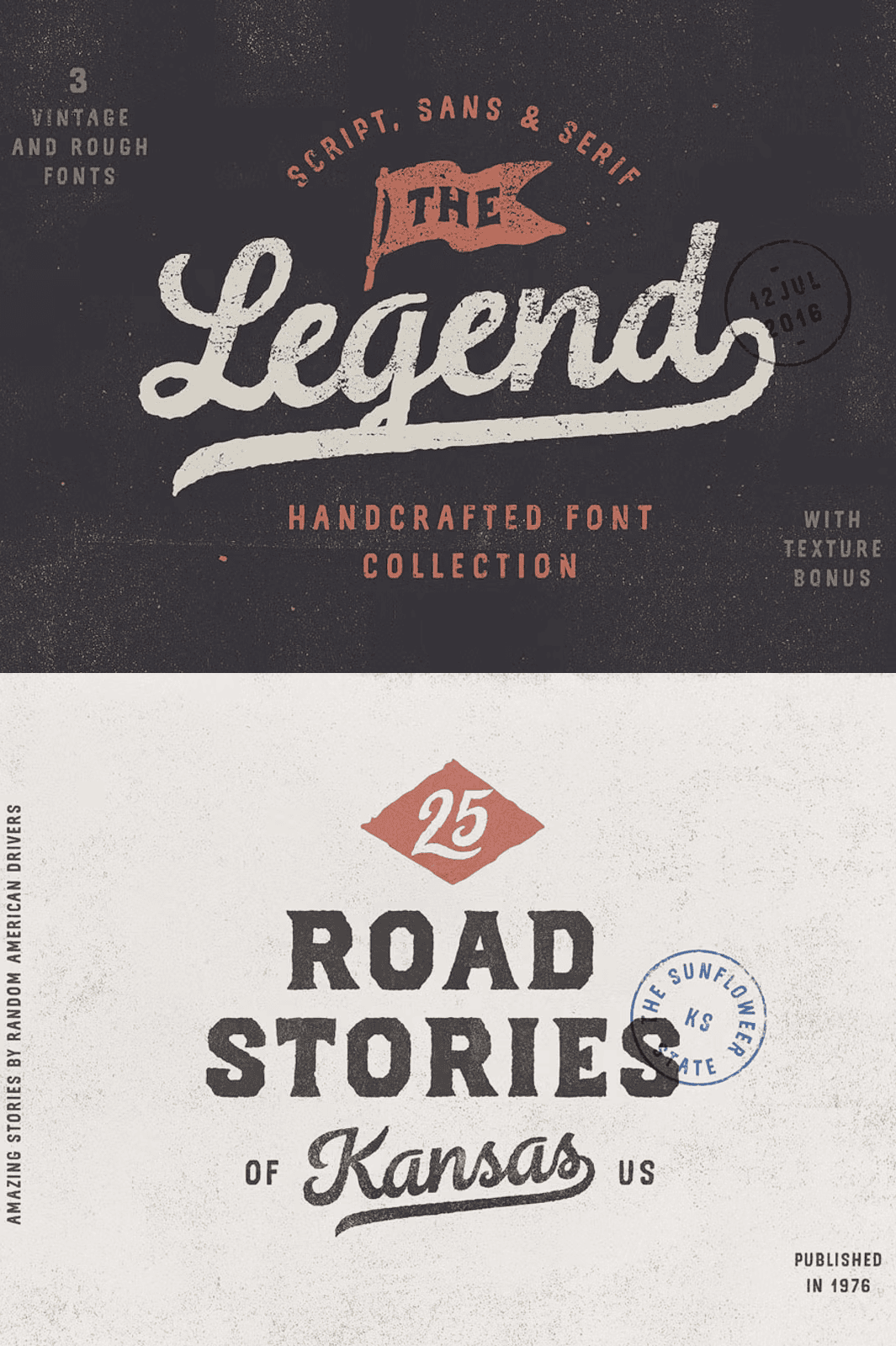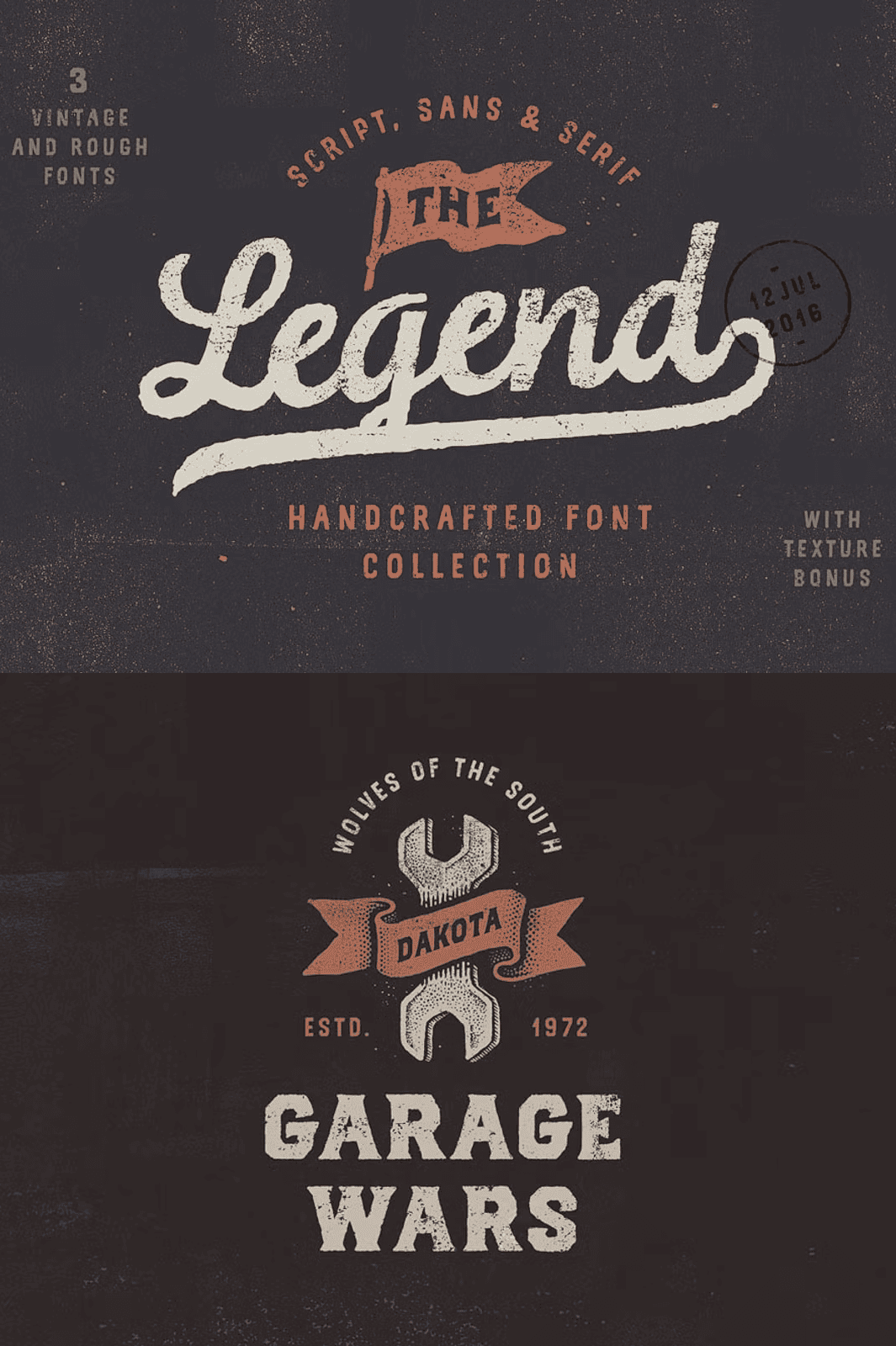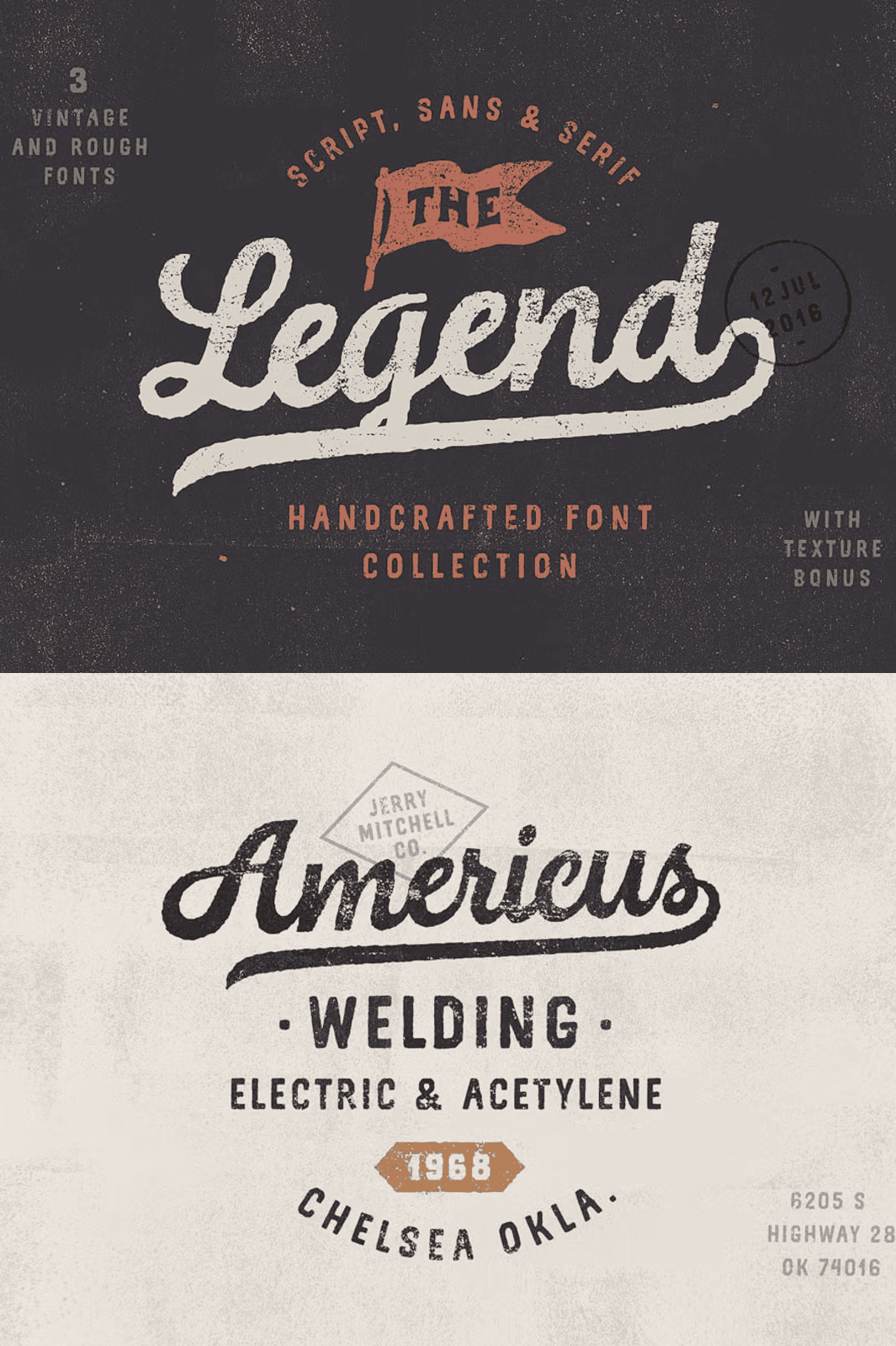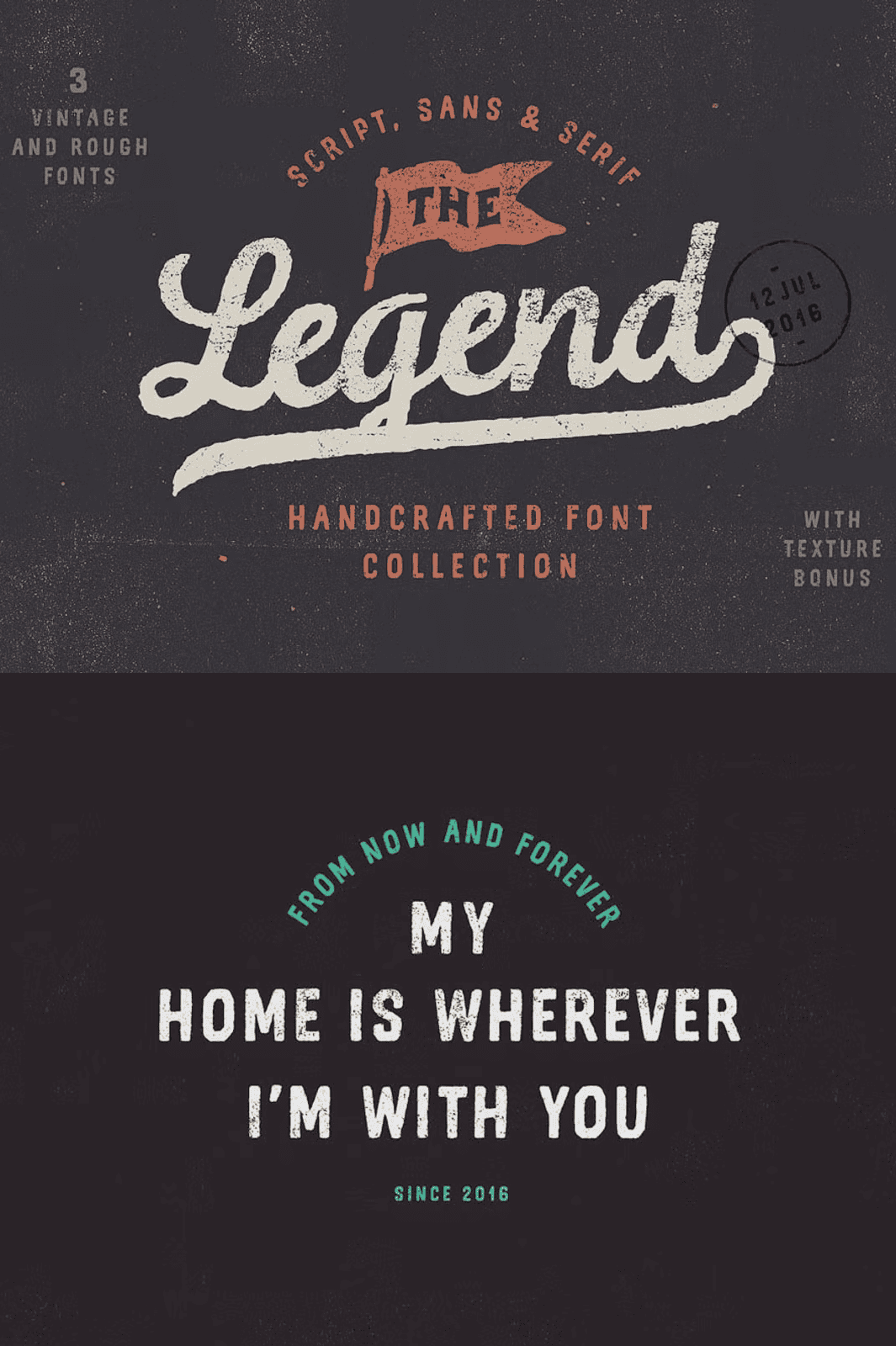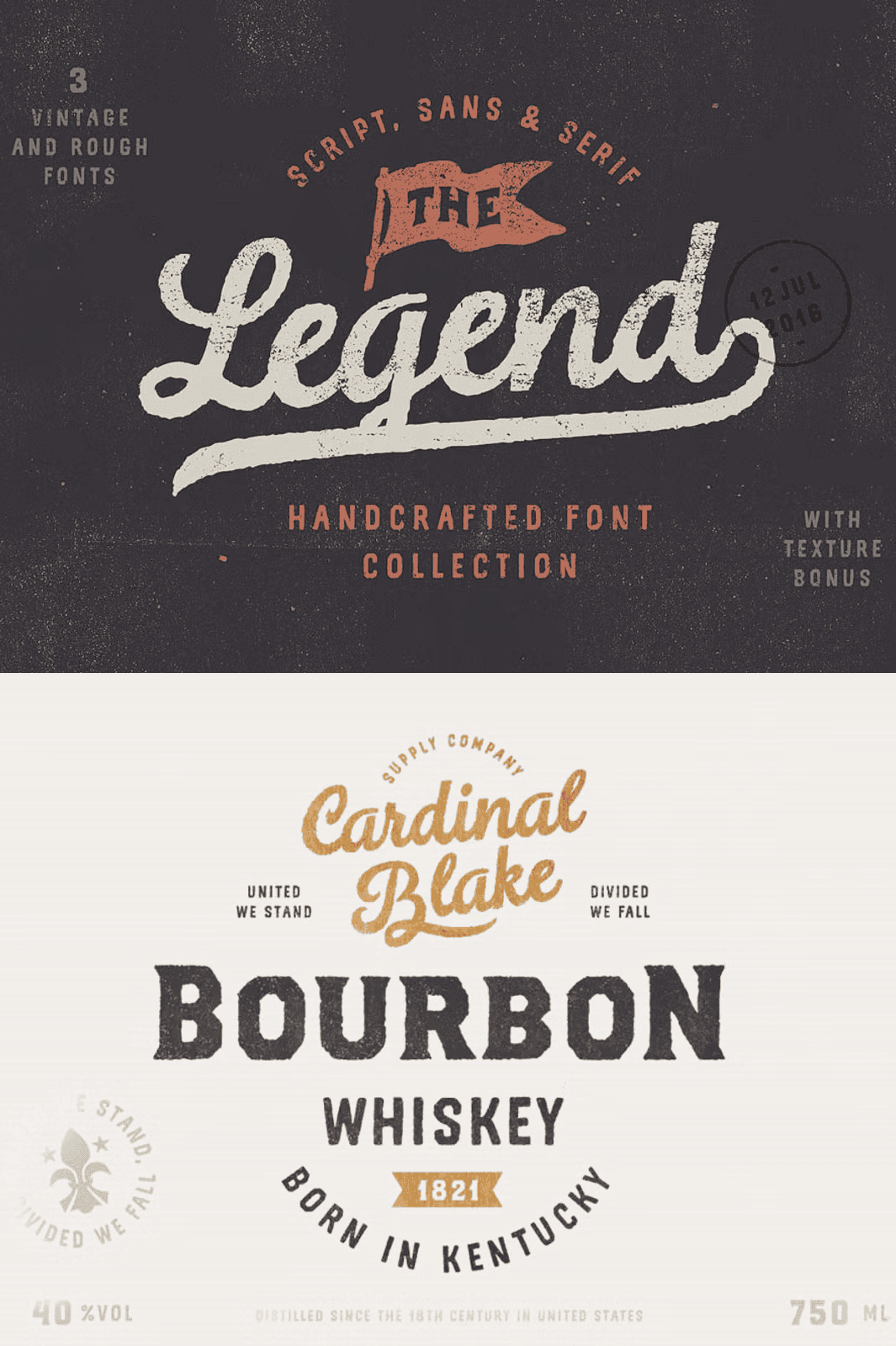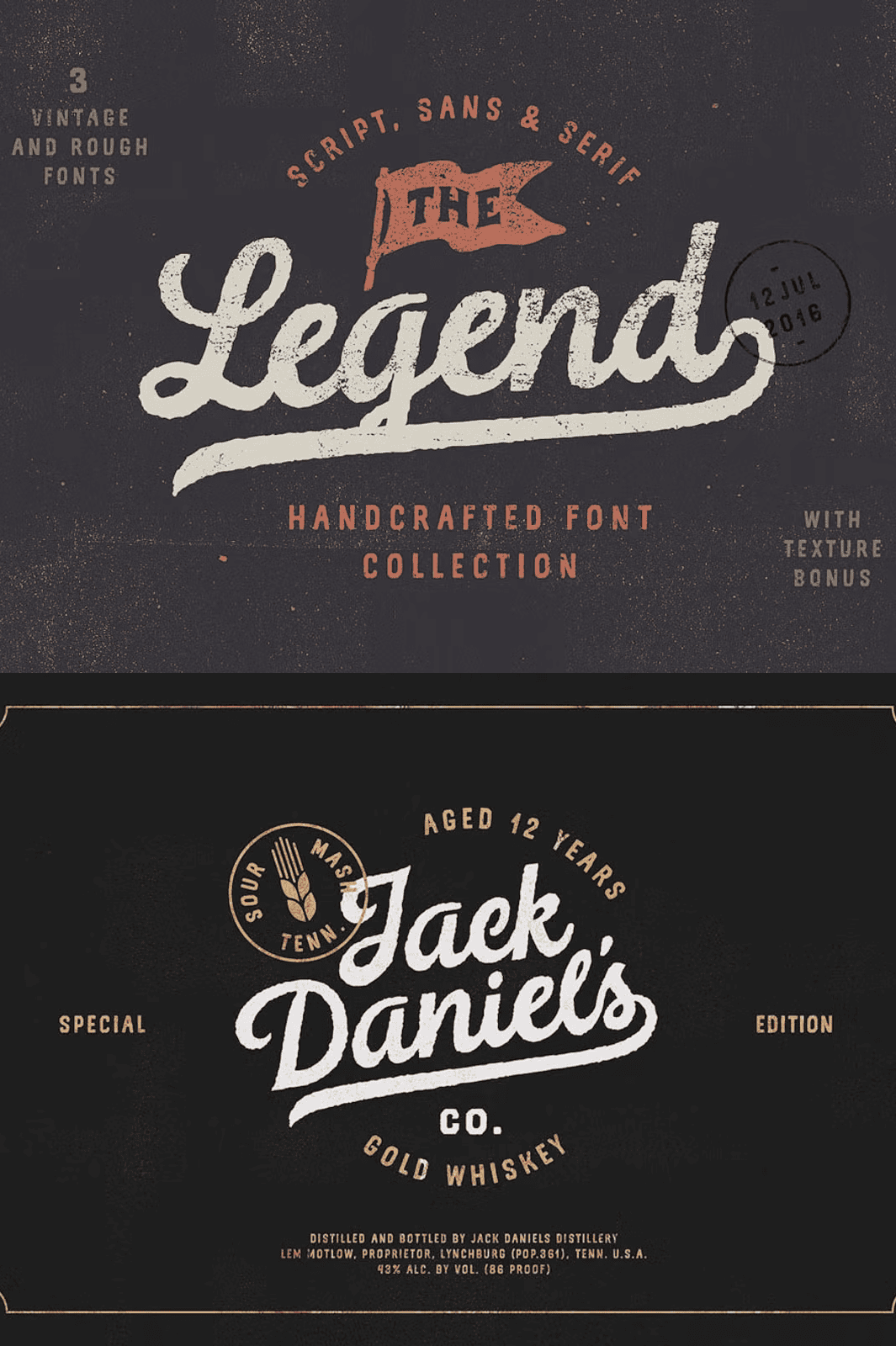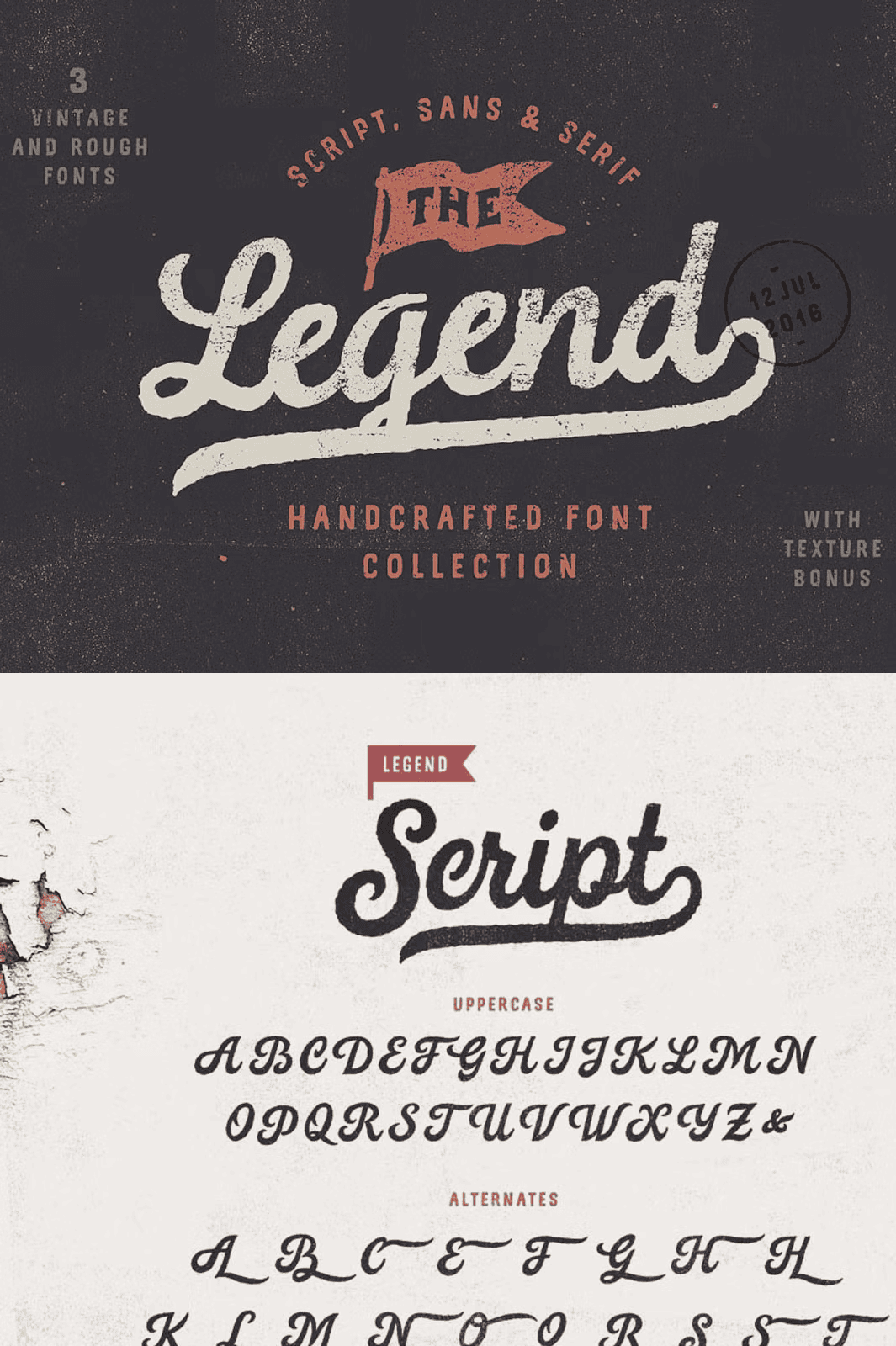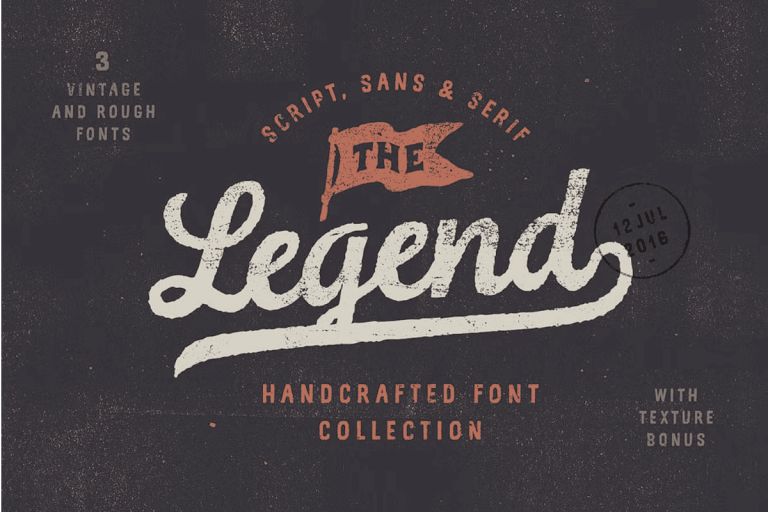
Legend Font Trio + Textures
Forge Authentic Visual Stories with Hand-Drawn Typography
Unleash raw creative energy with the **Legend Font Trio** a meticulously crafted collection inspired by classic American signage, 1950s diner culture, and the enduring spirit of hand-painted lettering. Each typeface was drawn by hand, then refined to preserve imperfection, grit, and soul because the most powerful designs aren’t flawless, they’re *alive*.
This trio redefines vintage aesthetics through purposeful impermanence. The **Legend Script** dances with elegant alternates, dynamic swashes, and specially designed lowercase forms that protrude for tighter two-line composition. The **Legend Sans** and **Legend Serif** were conceived as companions, yet evolved into stand-alone powerhouses each with its own bold personality and perfect balance.
Masterfully Engineered for Maximum Design Impact
Every font in the Legend Font Trio was built with intention and precision:
Legend Script: Features 12 unique end-swashes, customizable uppercase alternates, and enhanced lowercase characters (b, d, f, g, h) with extended elements for tighter, more compact text layouts.
Legend Sans: A clean, confident sans serif with a slightly rough texture ideal for body copy, headlines, and modern retro branding.
Legend Serif: Timeless elegance with subtle brush strokes and classic proportions, perfect for high-end invitations, packaging, and editorial design.
Unleash Versatility Across Every Creative Domain
The Legend Font Trio thrives where authenticity matters:
– **Brand identity and logo design** – Stand out with signature typography that tells a story
– **Product packaging and labels** – Add handcrafted charm to any package
– **Invitations and wedding stationery** – Create timeless, personalized moments
– **T-shirt and apparel design** – Turn clothing into wearable art
– **Advertising and promotional campaigns** – Command attention with bold, expressive visuals
– **Social media content and digital branding** – Build consistent, emotional brand presence
Design with Texture, Meaning, and Memory
The rough, brush-painted effect isn’t a flaw it’s the core of the design philosophy. Inspired by real paint strokes on metal nameplates and hand-lettered signs of yesteryear, each font carries the weight of craftsmanship. The included **8 hand-curated textures** let you simulate vintage finishes matte, grunge, weathered, and distressed so your work feels like it belongs in a real place, not just a digital canvas.
Upgrade Your Toolkit with the New Soft Version
Experience a gentler, smoother aesthetic without losing character. The **Legend Script Sans Serif (Soft)** version offers reduced roughness while maintaining the same soulful design spirit.
This is more than a font pack it’s a creative revolution in lettering. Let every stroke carry purpose. Let every word feel hand-crafted.